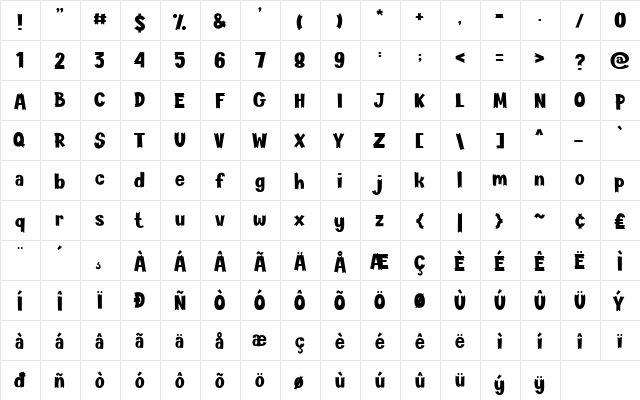
Scary Feet Regular
Design Context for Scary Feet Typeface
Scary Feet carries an unsettling edge — its distorted letterforms are built to unsettle, perfectly suited to horror, Halloween, and dark creative work.
Perfect for anything that needs to unsettle — game titles, horror branding, and macabre invitations.
Font Pairing: Pair with a clean neutral sans-serif for body copy to let Scary Feet's character lead without overwhelming the composition.
Pro Tip: Use Scary Feet at larger display sizes for maximum impact. Consider generous tracking to let the disturbing character of each letterform breathe.